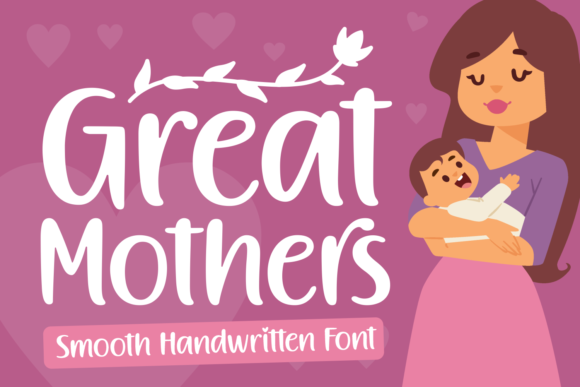
Step into the world of refined elegance with Great Mothers Font, a captivating script font family that exudes warmth, charm, and a touch of nostalgia. Inspired by the timeless beauty of handwritten letters, this font is a treasure trove of creative possibilities, ready to grace your designs with a personal touch.
Immerse yourself in the beauty of Great Mothers, a font meticulously crafted to evoke the essence of heartfelt emotions. Its bold strokes and friendly curves dance across the page, leaving a trail of visual delight. Whether you're a seasoned designer or just starting your creative journey, this font is your gateway to stunning designs that resonate with your audience.
With Great Mothers Font, the possibilities are endless. Its versatility shines through in a myriad of applications, from magazine titles and branding projects to heartfelt invitations and social media graphics. Let your imagination soar as you explore the endless creative avenues that this font unlocks.
Unleash the power of Great Mothers and watch your designs transform into works of art. Its charming personality adds a touch of warmth and authenticity to every project, leaving a lasting impression on your audience. Experience the joy of creating designs that speak to the heart and leave an indelible mark on the minds of those who encounter them.
Don't miss out on the opportunity to add Great Mothers Font to your creative arsenal. Its timeless appeal and versatility make it an indispensable tool for any designer seeking to create truly exceptional designs. Elevate your projects to new heights of elegance and charm, and let Great Mothers Font guide you on your journey to creative greatness.